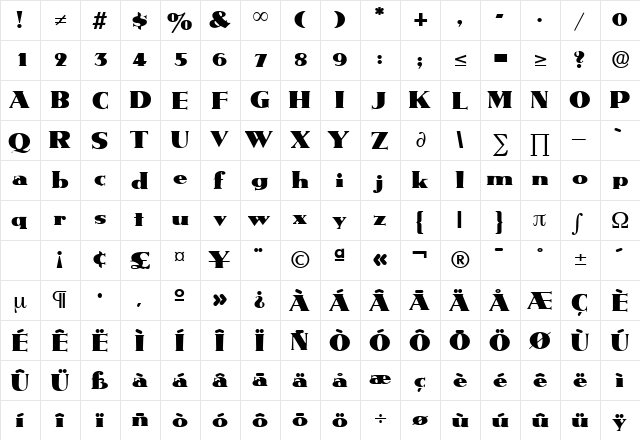
Metropolis DB Medium
Design Context for Metropolis DB Typeface
Metropolis DB is a composed and adaptable typeface that performs quietly and consistently across a wide range of design contexts.